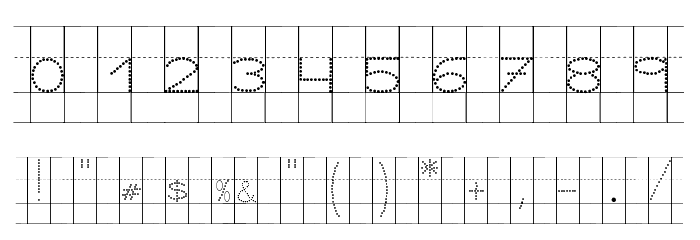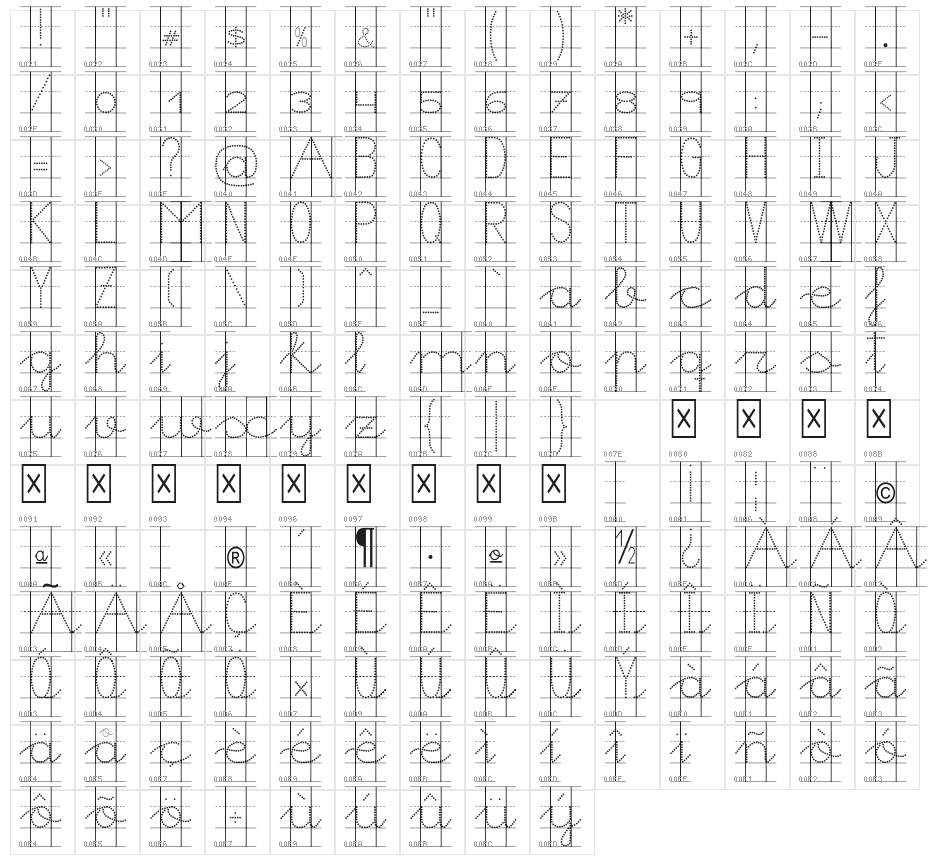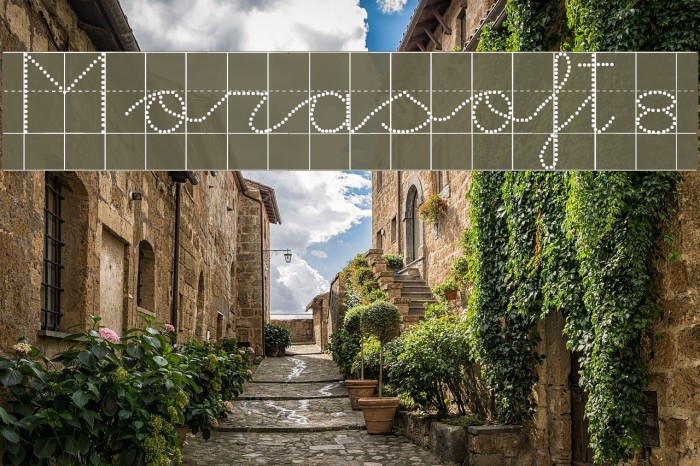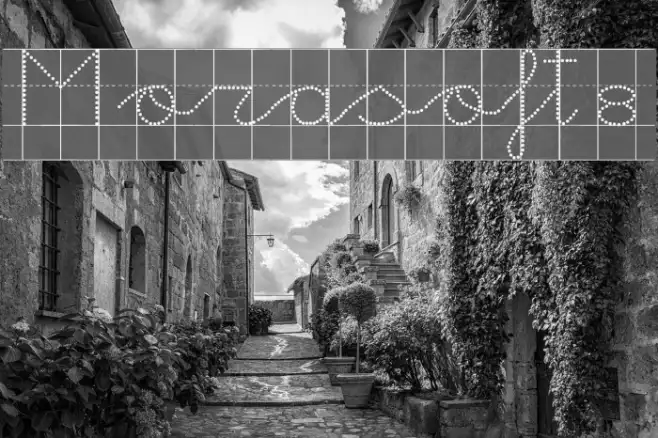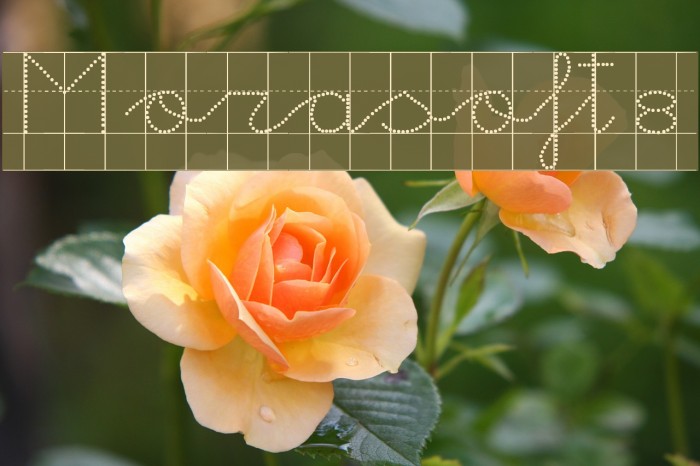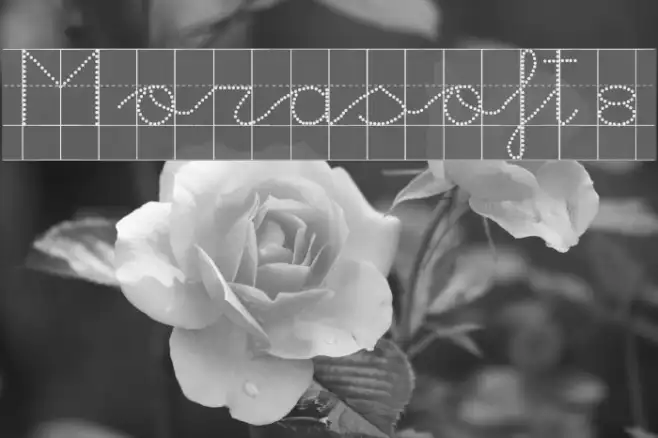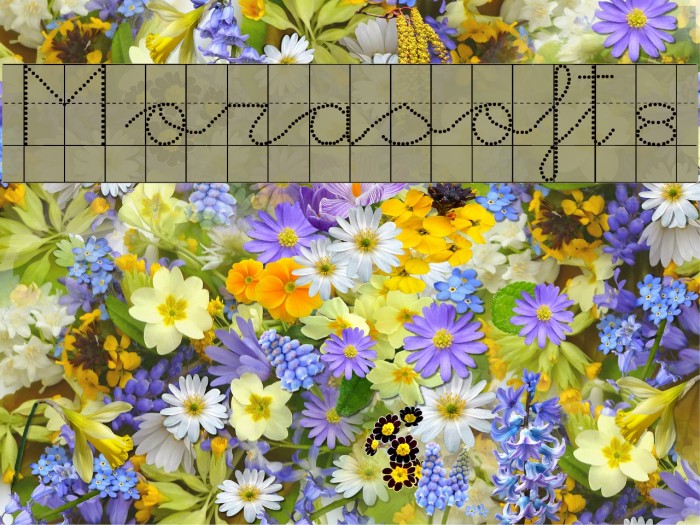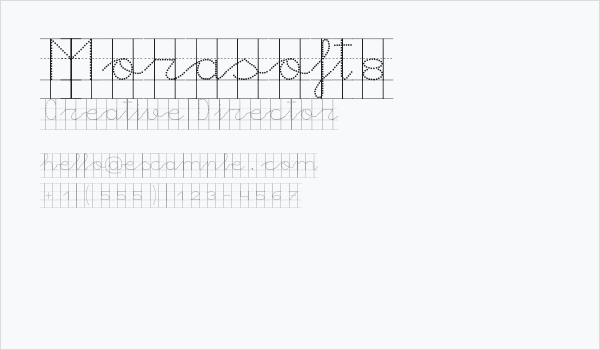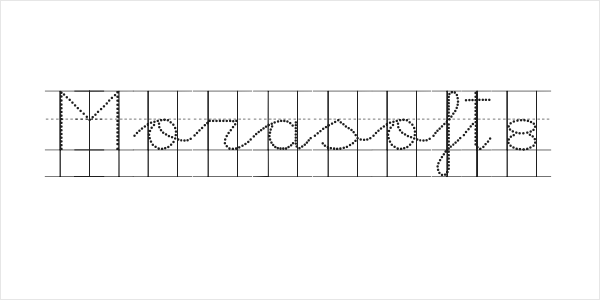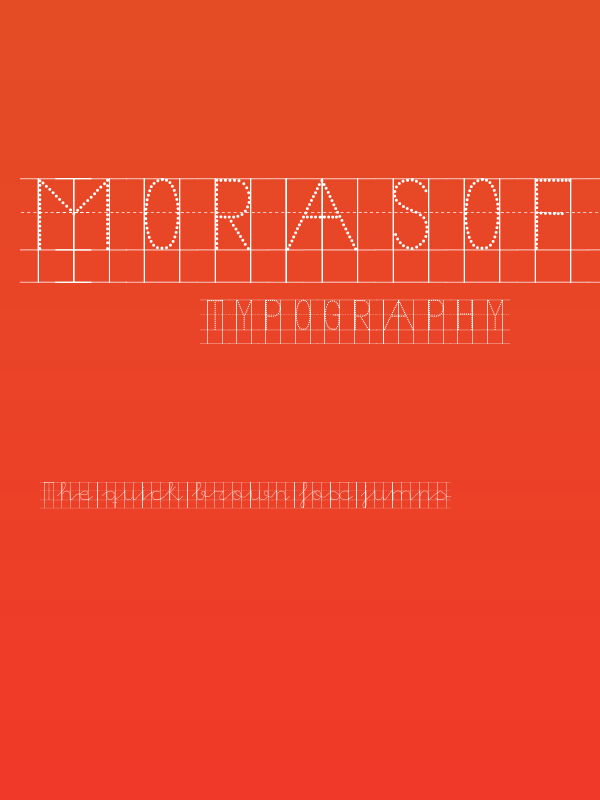
Morasoft8 Font
Morasoft8 Description
This font features a dotted design, ideal for educational purposes, particularly in teaching handwriting. The uppercase letters are structured and geometric, with a consistent height and width, providing a clear and easy-to-follow guide for learners. The lowercase letters are cursive, connecting smoothly from one to the next, which helps in practicing continuous writing. Numbers and special characters maintain the dotted style, ensuring uniformity across all elements. The overall appearance is clean and instructional, making it suitable for worksheets and learning materials.
| Overall Style | Educational |
| Use Case | Educational materials, handwriting guides. |
| Proposed Projects | Ideal for educational worksheets, handwriting practice sheets, and early learning materials. |